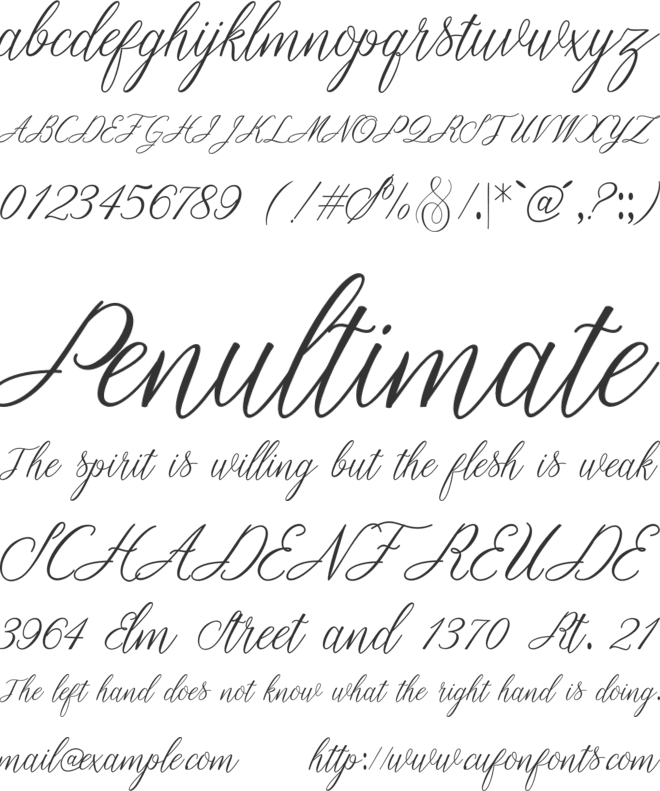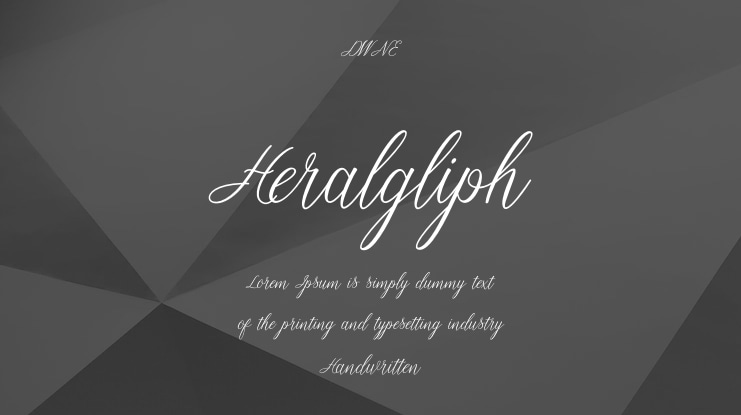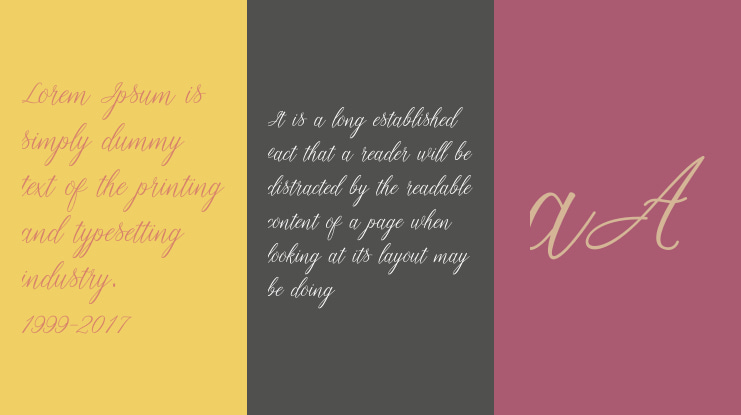
Heralgliph Font
Heralgliph is a sophisticated typeface that blends the timeless elegance of script lettering with the classical forms of Latin characters. Its design is characterized by thin, graceful strokes that convey a sense of delicacy and refinement. Perfect for upscale invitations, luxury branding, and artistic projects.